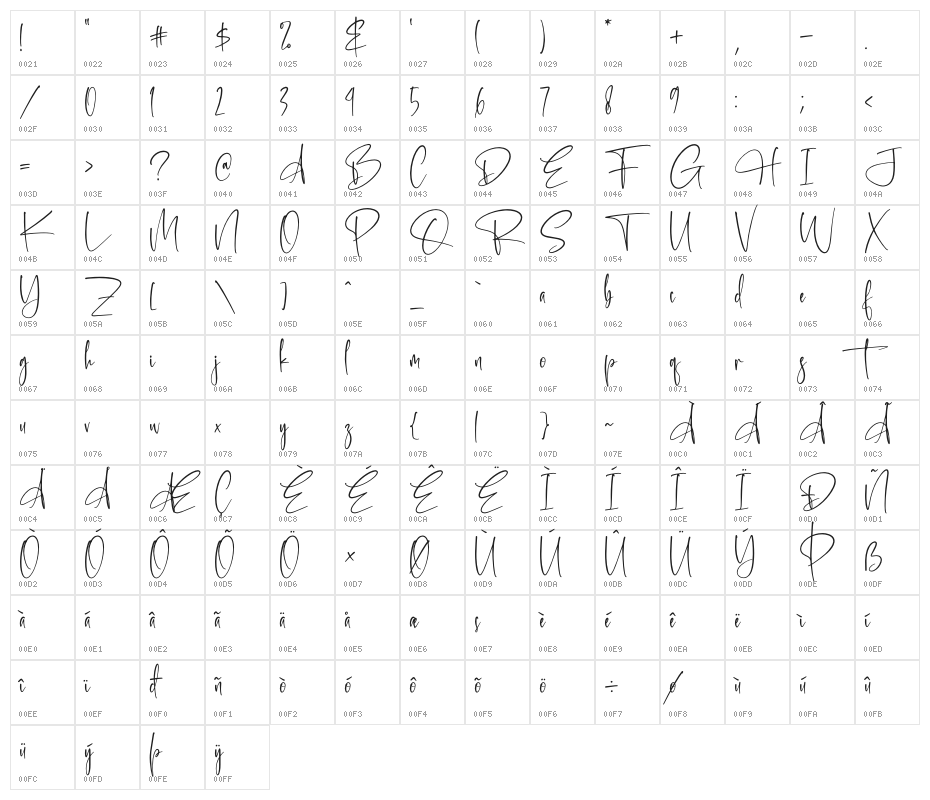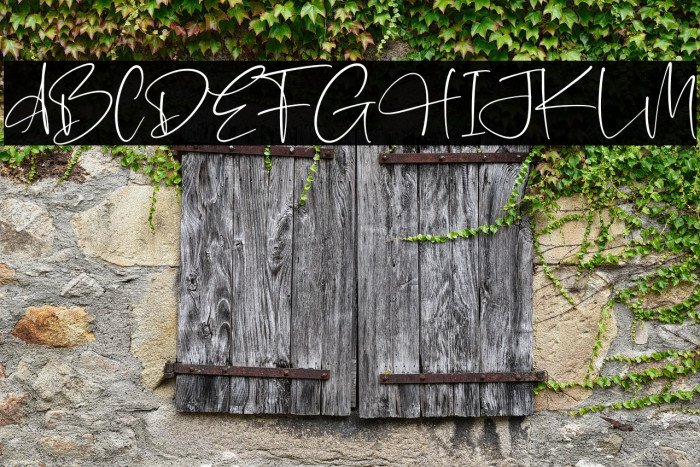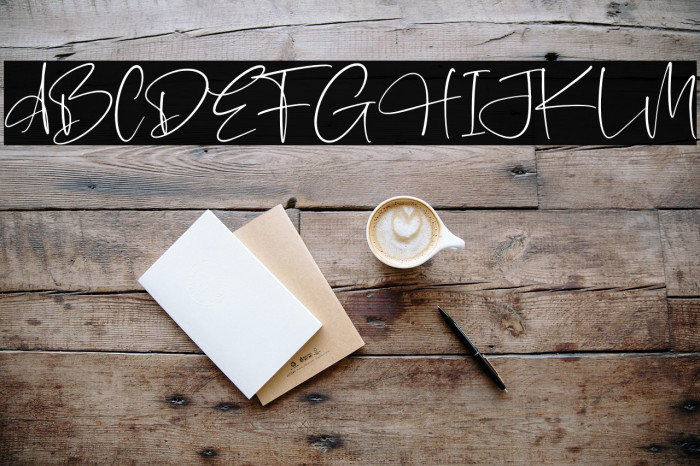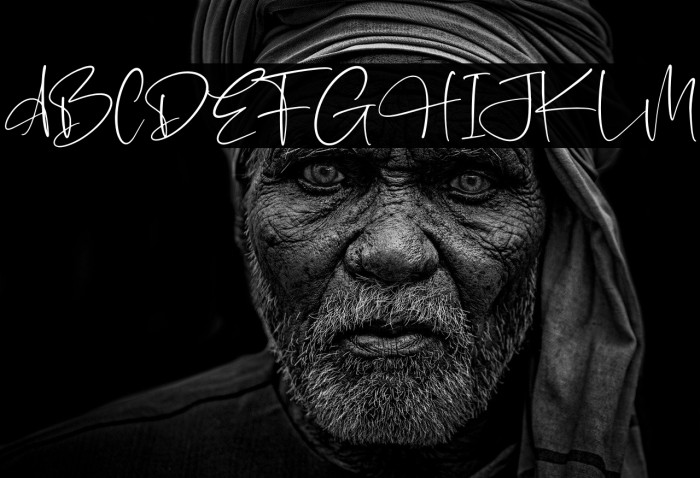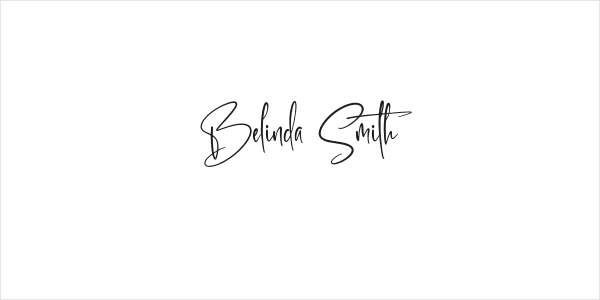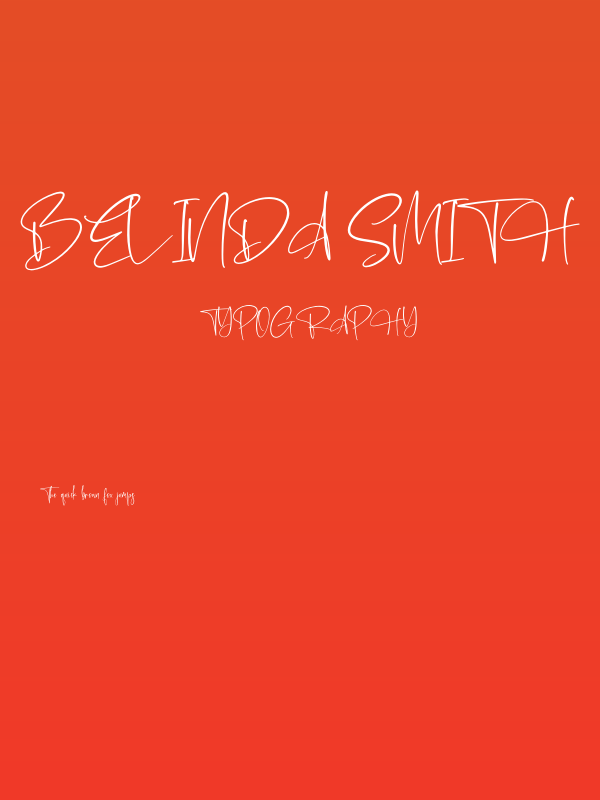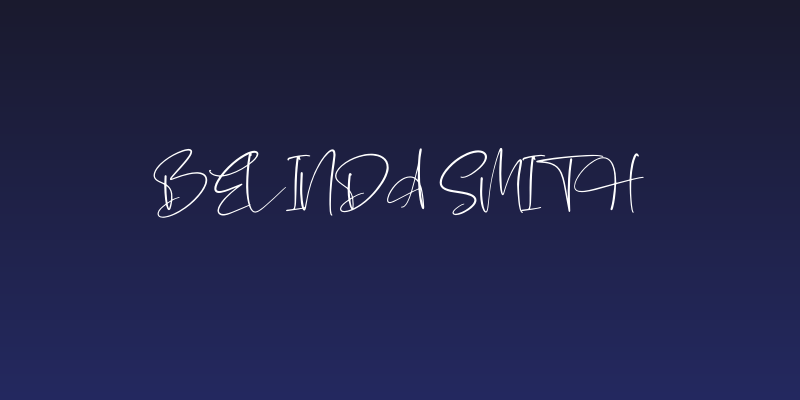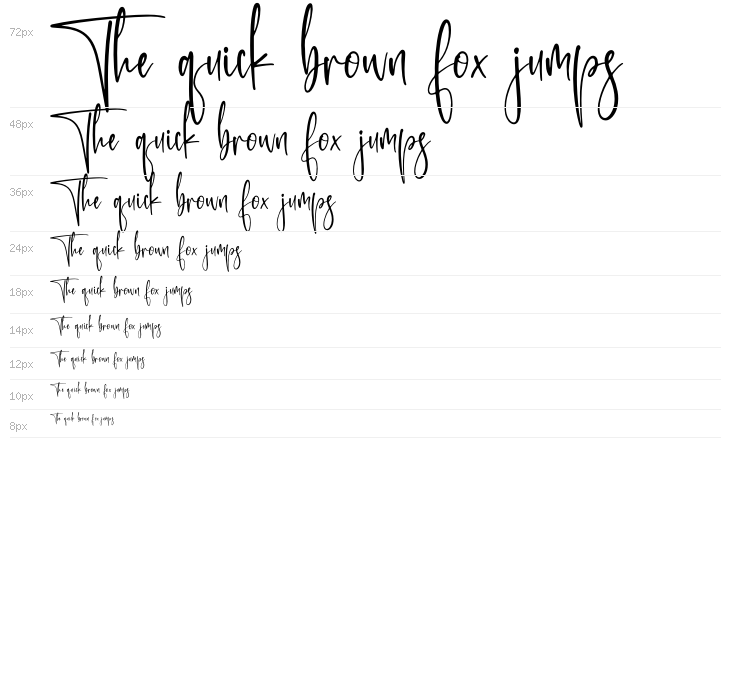
Belinda Smith Font
Belinda Smith Description
This font exhibits a lively and dynamic handwritten style, characterized by its fluid and continuous strokes. The letters are slightly slanted, giving a sense of motion and energy. The uppercase and lowercase letters maintain a consistent style, with elongated ascenders and descenders that add to its elegant appearance. The numerals and special characters follow the same flowing aesthetic, ensuring uniformity across all glyphs. The overall look is casual yet sophisticated, making it suitable for projects that require a personal touch.
| Proposed Projects | Ideal for wedding invitations, greeting cards, personal branding, and social media graphics. |